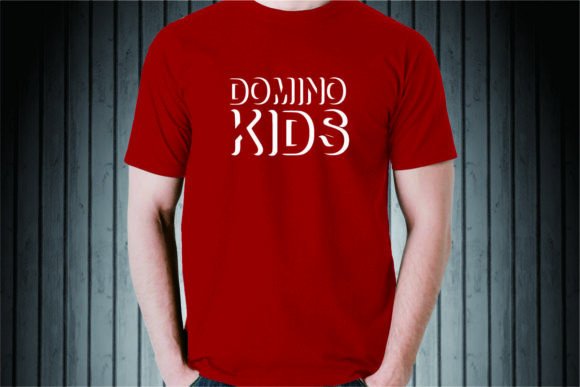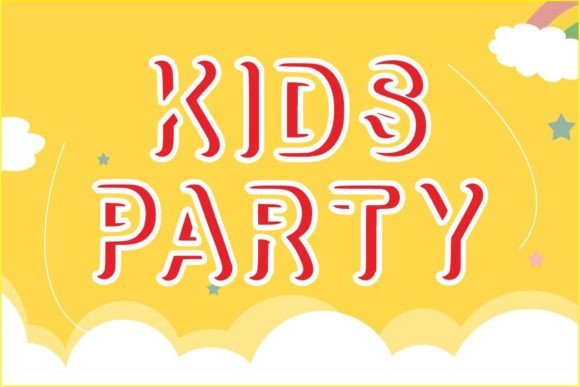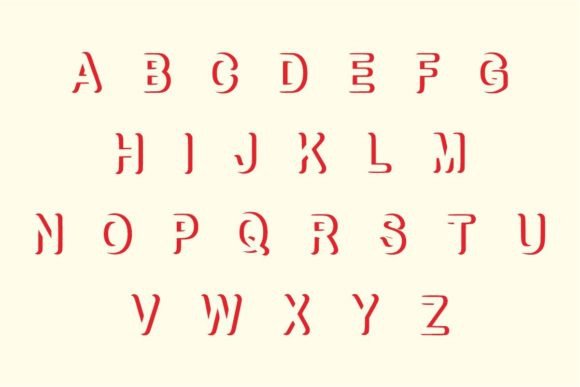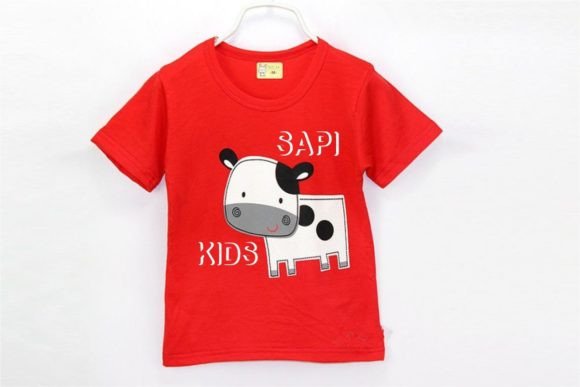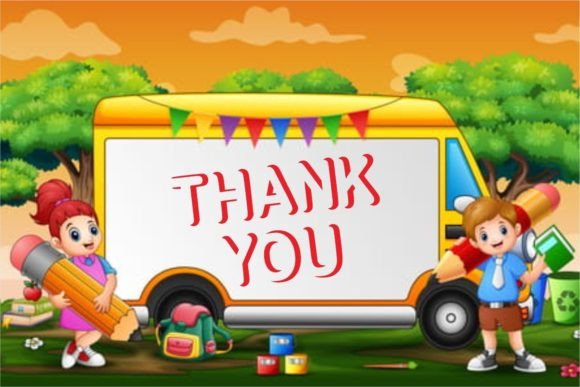
Introduction to Kurcaci Squad Font
Kurcaci Squad is a girly and cute display font that’s perfect for fun and playful designs.
Character letters have a friendly and approachable feel, making them ideal for children’s books, toys, and other whimsical projects .